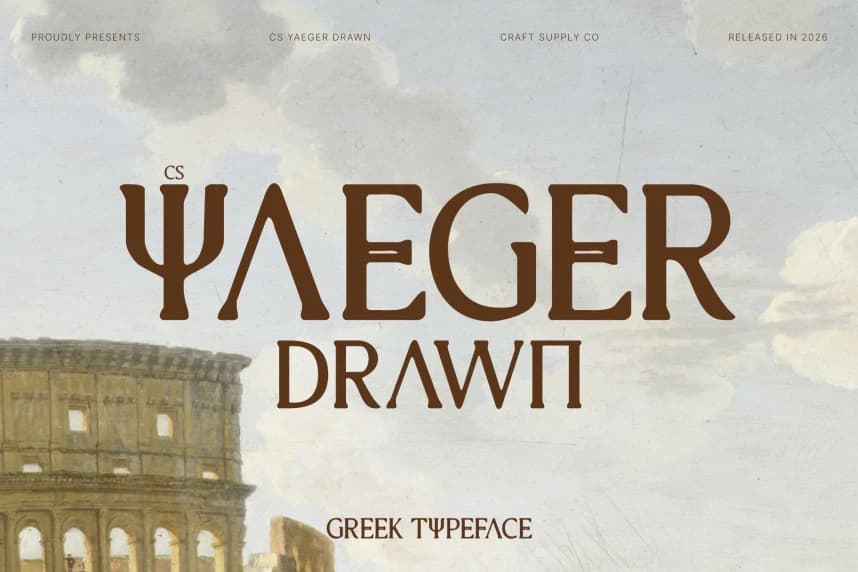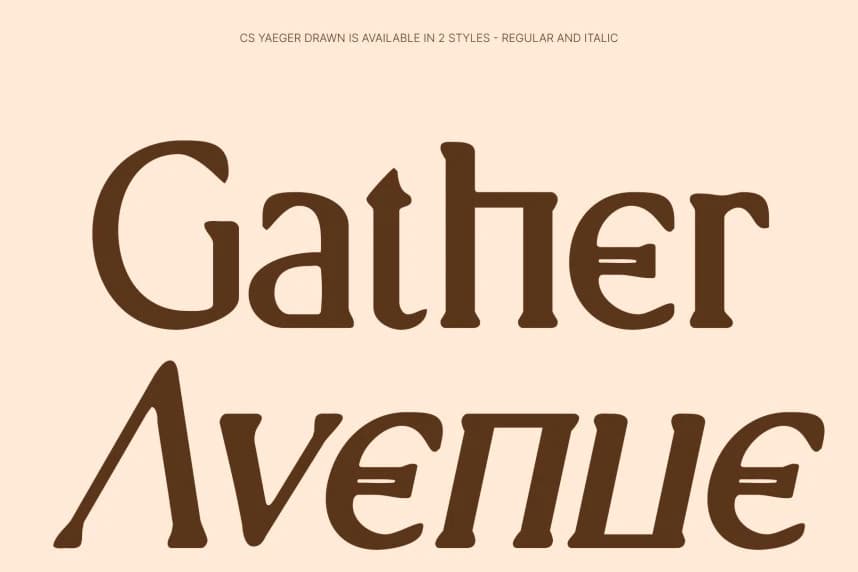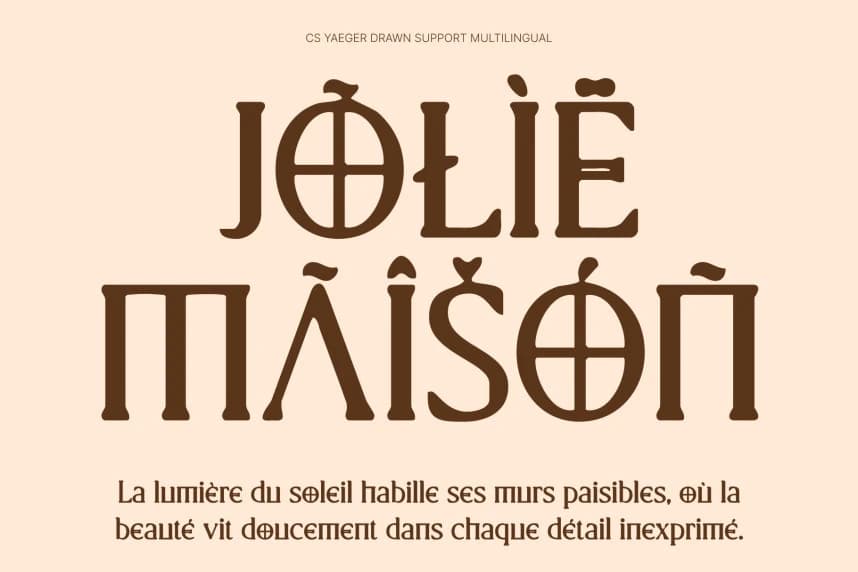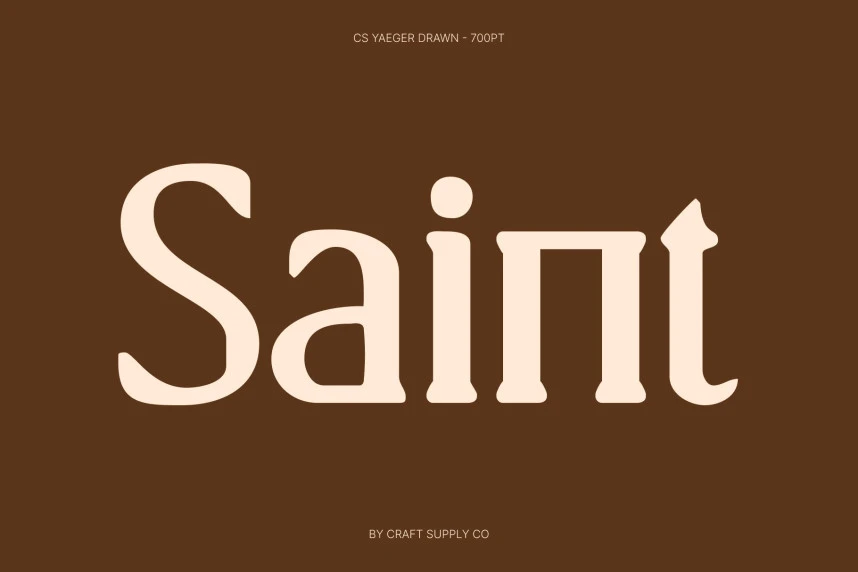
CS Yaeger Drawn Font
CS Yaeger Drawn Font – Classical Strength with Modern, Handcrafted Character Inspired by Ancient Greek Elegance. This is an elegant serif display font rooted in the timeless beauty of ancient Greek letterforms.